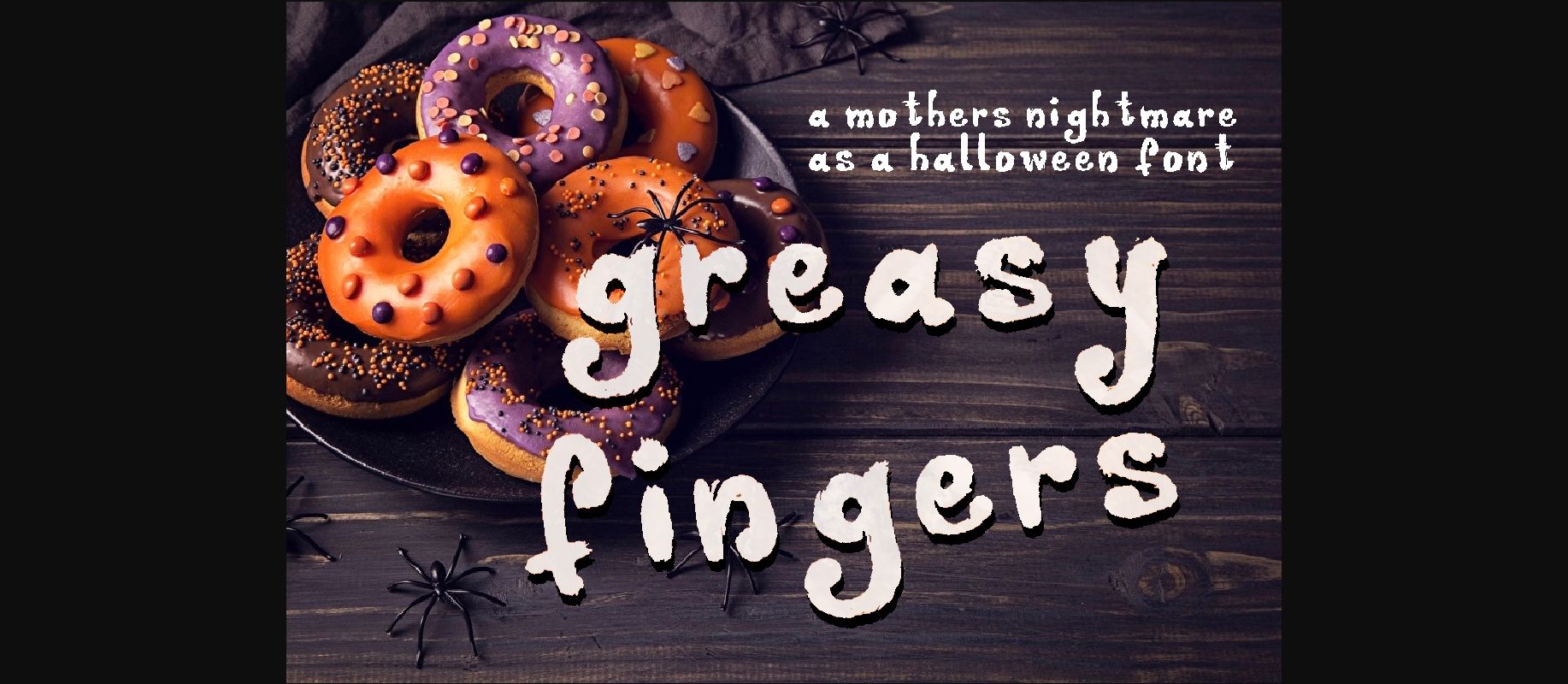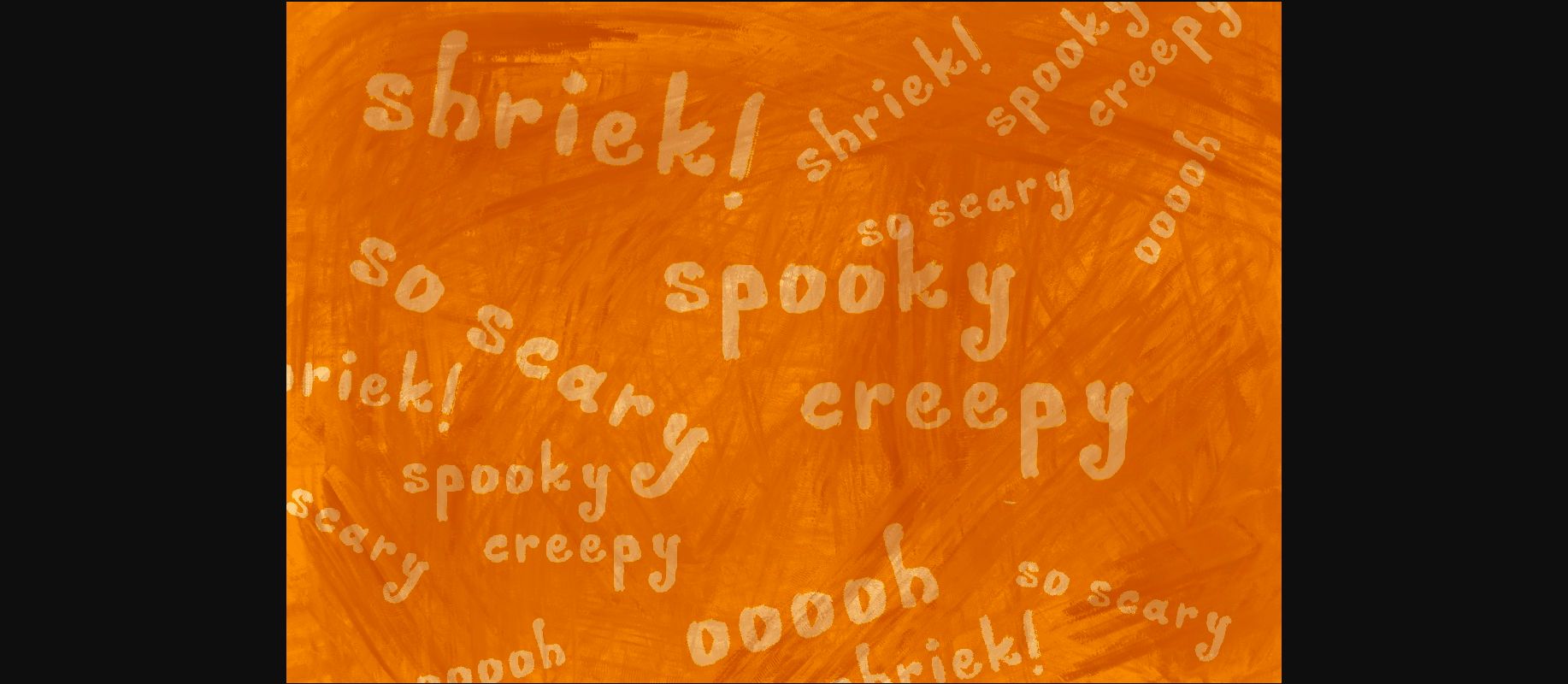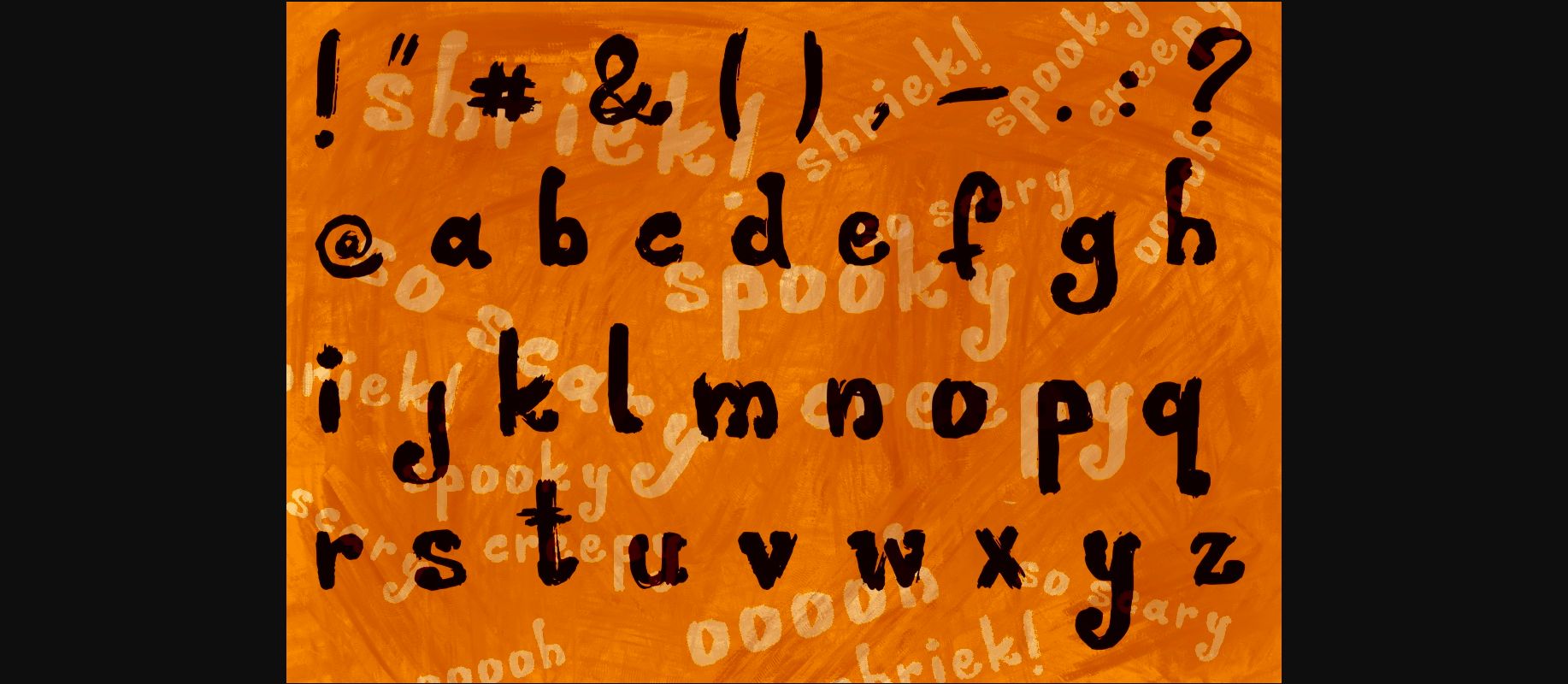
Greasy Fingers Font
About Greasy Fingers Font
Greasy Fingers is a stunning, spooky and scary decorative font, perfect for all the witches, ghouls and ghosts out there! It will add a creepy feel to any Halloween-themed design project!